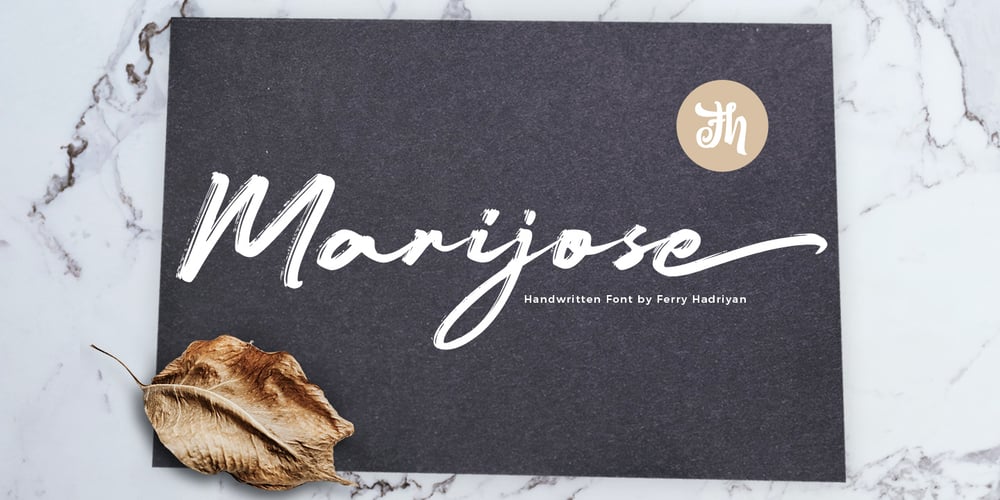
Marijose Font Family was designed by Ferry Hadriyan and published by FHFont. Marijose contains 1 styles and family package options. Marijose is script font with handlettering brush style, inspired feminime signature style with opentype feature include of the font. Suitable for wedding, logo lettering with feminime style, apparel, card invitation, and awesome project.